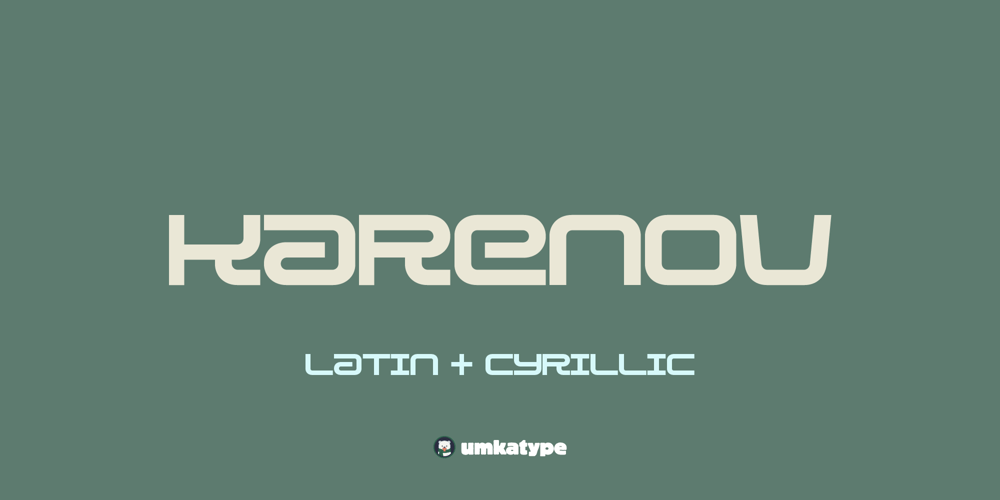
Karenov
Karenov font
Karenov Font Family was designed by Alper Çakıcı and published by Umka Type. Karenov contains 1 styles and family package options. Karenov is an innovative and geometric font with impeccable kerning, tailored for seamless integration in digital and print media. Its comprehensive Cyrillic language support ensures effortless multilingual communication. Karenov’s avant-garde design merges timeless proportions with a futuristic aesthetic, setting it apart as a standout choice within its category.It supports 92 Languages, including Russian, Afrikaans, Albanian, Asu, Basque, Bemba, Bena, Breton, Catalan, Chiga, Cornish, Danish, Dutch, English, Faroese, Filipino, French, Friulian, Galician, German, Gusii, Icelandic, Indonesian, Irish, Italian, Kabuverdianu, Kalenjin, Kinyarwanda, Luo, Luxembourgish, Luyia, Machame, Makhuwa-Meetto, Makonde, Malagasy, Manx, Morisyen, North Ndebele, Norwegian Bokmål, Norwegian Nynorsk, Nyankole, Oromo, Portuguese, Quechua, Romansh, Rombo, Rundi, Rwa, Samburu, Sango, Sangu, Scottish Gaelic, Sena, Shambala, Shona, Soga, Somali, Spanish, Swahili, Swedish, Swiss German, Taita, Teso, Turkish, Uzbek (Latin), Volapük, Vunjo and Zulu